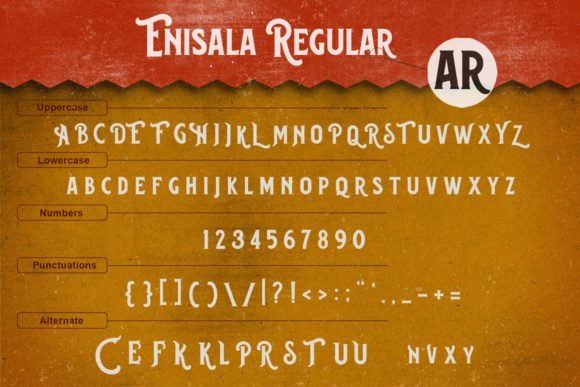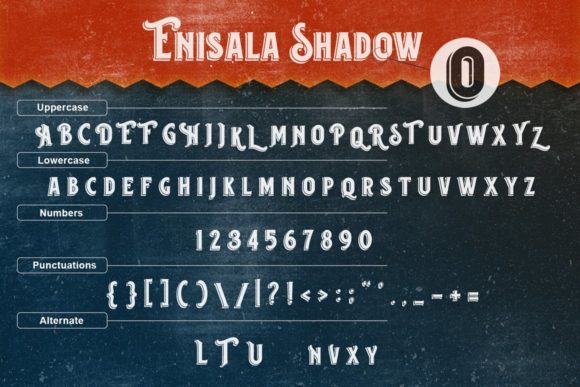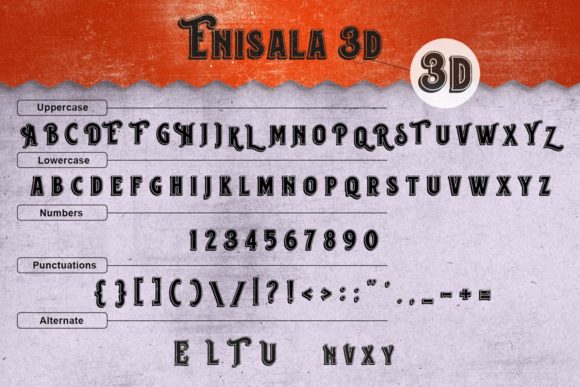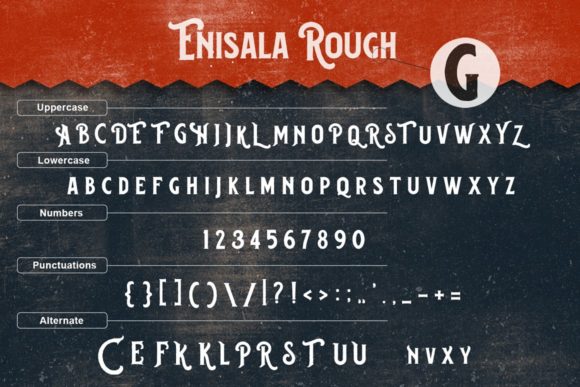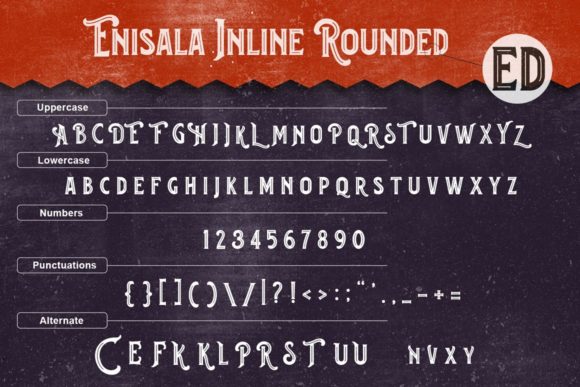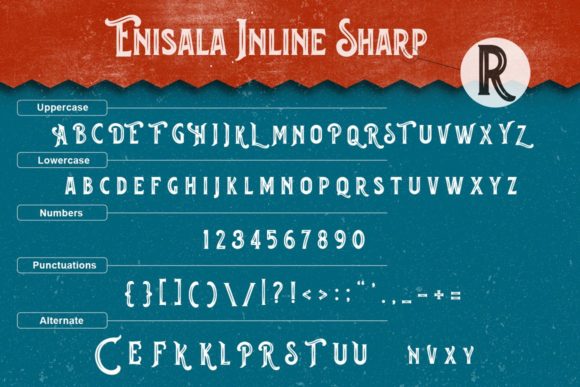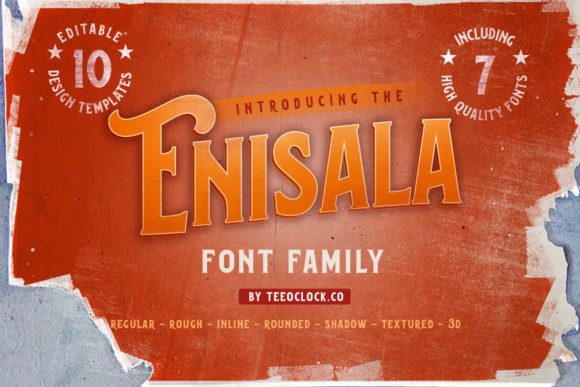
Discover the Versatility of Enisala Font: A Designer’s Dream Come True
In the world of typography, a great font can make all the difference in elevating a design from ordinary to extraordinary. For designers and crafters on the lookout for a versatile and visually stunning font, Enisala Font is an excellent choice. This fantastic display font family boasts 7 amazing styles, making it perfect for a wide range of applications, from headlines of all sizes to blocks of text with varying font sizes.
What Makes Enisala Font Stand Out?
Enisala Font is a masterpiece of typographic design, offering a unique blend of style, flexibility, and readability. Its 7 styles provide a wealth of creative possibilities, allowing designers to experiment with different looks and feels to find the perfect fit for their project. Whether you’re working on a website, brochure, video, or any other visual medium, Enisala Font is sure to impress.
Key Features of Enisala Font
- 7 Amazing Styles: From bold and dramatic to elegant and refined, Enisala Font’s 7 styles cater to diverse design needs and preferences.
- Versatility: Use Enisala Font for headlines, titles, and blocks of text, both large and small, with exceptional results.
- High Readability: Despite its decorative nature, Enisala Font remains highly legible, making it suitable for body text and longer content.
- Multi-Platform Compatibility: Enisala Font performs beautifully across various mediums, including web, print, and moving images.
Enisala Font’s adaptability makes it an ideal choice for numerous design projects. Here are a few examples of where this fantastic font can shine:
- Web Design: Use Enisala Font to create stunning website headers, titles, and emphasis text that captures visitors’ attention.
- Print Design: Add a touch of elegance to brochures, posters, business cards, and other print materials with Enisala Font’s sophisticated styles.
- Branding and Advertising: Create memorable brand identities and advertisements with Enisala Font’s bold and eye-catching designs.
- Film and Video: Incorporate Enisala Font into your video projects, such as titles, subtitles, and lower thirds, for a professional and stylish look.
Tips for Using Enisala Font Effectively
To get the most out of Enisala Font, consider the following tips:
- Mix and Match Styles: Combine different Enisala Font styles to create visual hierarchy and add depth to your design.
- Experiment with Colors: Take advantage of Enisala Font’s versatility by pairing it with a variety of colors to evoke different emotions and moods.
- Pay Attention to Line Height and Spacing: Ensure optimal readability by adjusting line height and spacing according to the specific style and size of Enisala Font you’re using.
| Font Name | Enisala Font |
| Author | teeoclock.co |
In conclusion, Enisala Font is a great font family that offers designers and crafters a powerful tool for creating stunning visual content. With its 7 amazing styles, versatility, and high readability, Enisala Font is perfect for a wide range of applications, from web and print to film and video. By incorporating Enisala Font into your design projects, you’ll be able to elevate your work and leave a lasting impression on your audience.